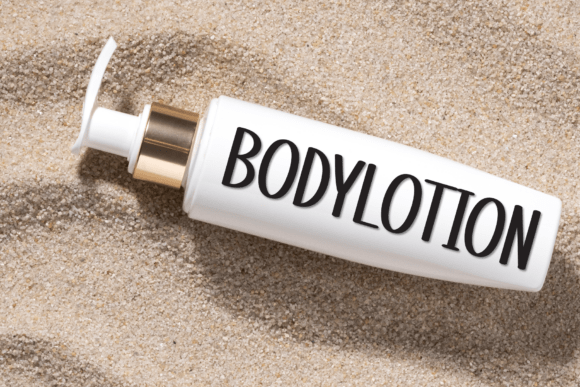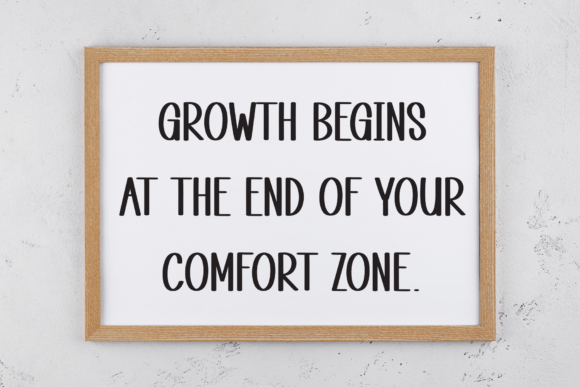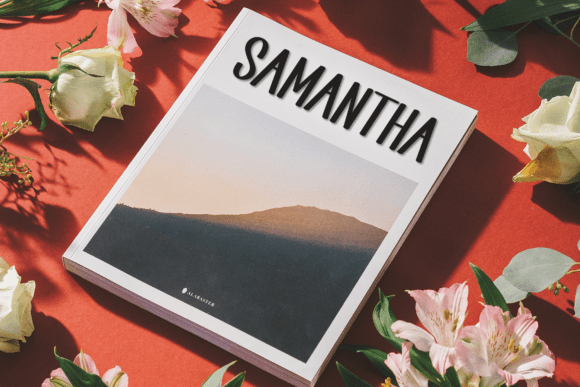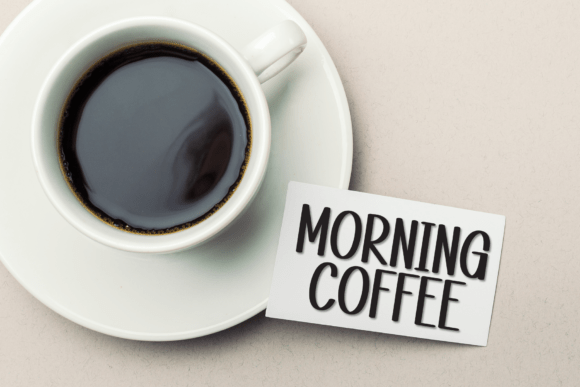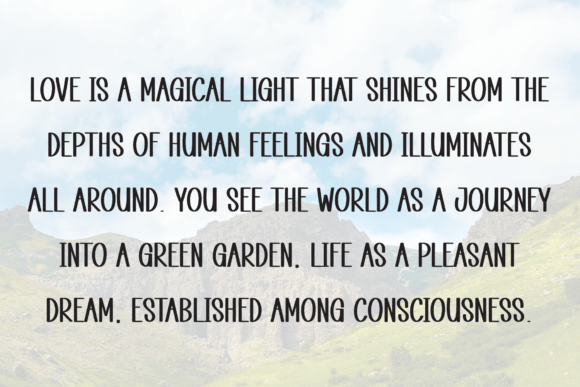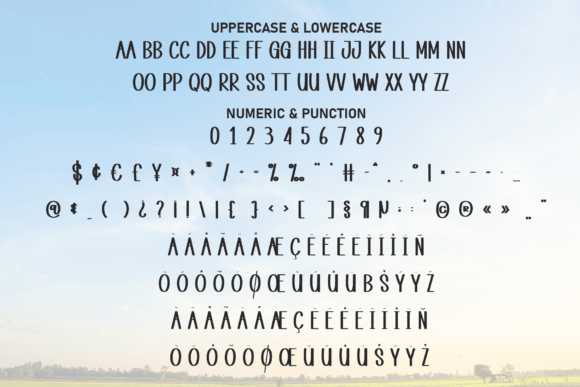
Introduction to Highmore Font Font
Fonts play a crucial role in design, and the Highmore Font font is a typeface that brings both character and versatility to any project. Whether you’re working on a branding project, a website, or a print design, the Highmore Font font offers a unique style that can elevate your work.
Embark on a creative journey with this cozy, display font woven with warmth and personality.
Possessing a delightful charm, this font perfectly molds into settings that require a festive and lighthearted touch Be it wedding invitations that scream love, cheerful cards, or any design that craves for a dash of merriment, this font steals the show.
Key Features of Highmore Font Font
Why Choose Highmore Font Font?
The Highmore Font font is more than just a typeface – it’s a design tool that helps you communicate your message with style and clarity. Its unique character set and versatile design make it suitable for a wide range of applications, from elegant invitations to bold headlines.
With its carefully crafted letterforms and balanced proportions, the Highmore Font font ensures readability and visual appeal across all mediums.
What makes Highmore Font font special?
The Highmore Font font stands out with its unique design, exceptional readability, and versatility across various design applications.